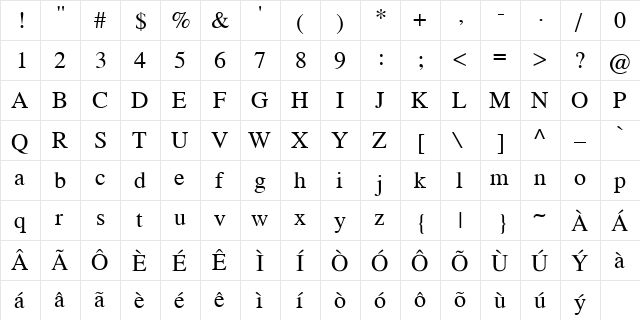
UVnTime Regular
Design Context for UVnTime Typeface
UVnTime offers clean, dependable letterforms without strong stylistic allegiance, making it a practical choice for designers who need flexibility.